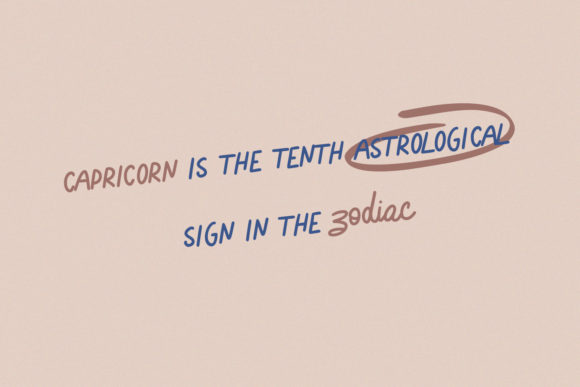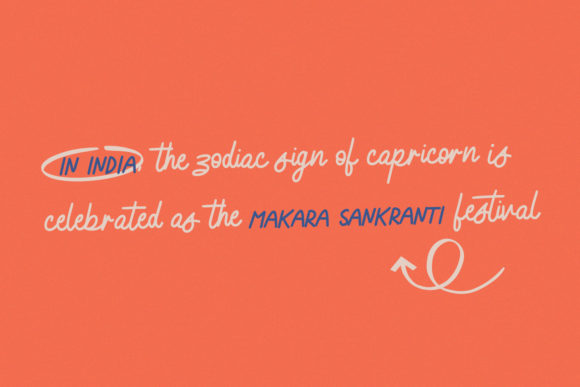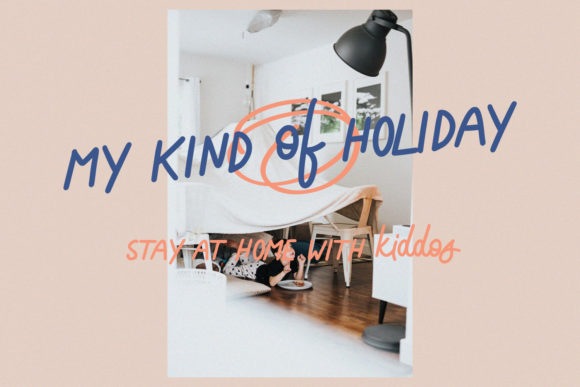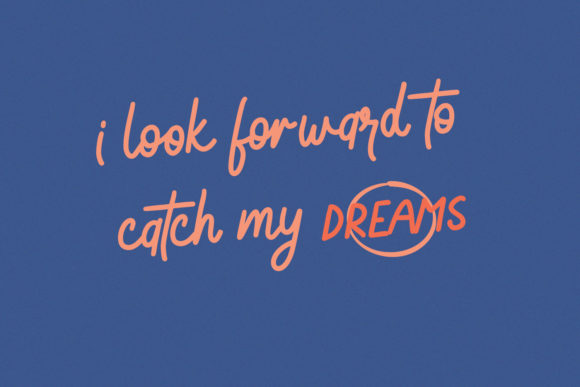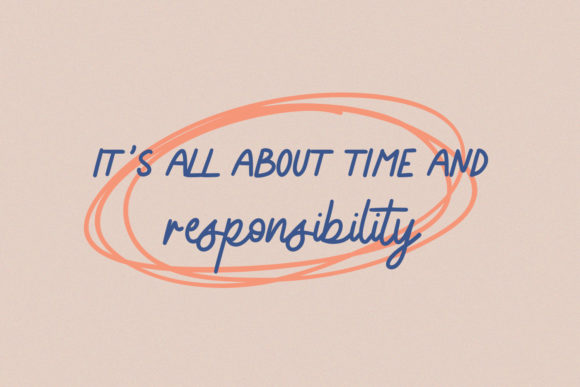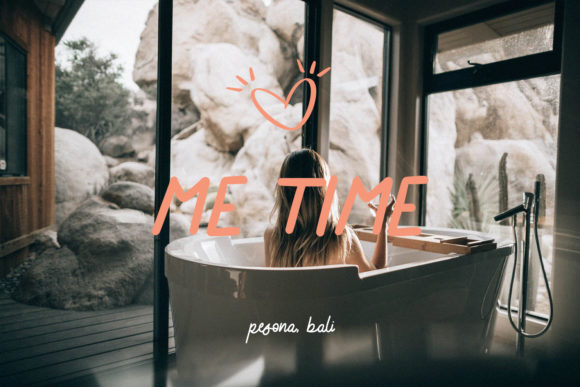
Introducing Capricorn Sign Font: The Perfect Addition to Your Design Arsenal
Are you a designer or crafter looking for a unique and versatile font to elevate your creative projects? Look no further than the Capricorn Sign Font, a simple yet charming handwritten font that is sure to capture your audience’s attention. In this article, we’ll dive into the features and benefits of this delightful font, and explore how you can use it to take your designs to the next level.
What is Capricorn Sign Font?
Capricorn Sign Font is a carefully crafted handwritten font that exudes a sense of casual charm and playfulness. Its simple and easy-to-use design makes it perfect for a wide range of creative projects, from digital designs to handmade crafts. The font’s cute doodle elements add a touch of whimsy and personality, making it ideal for designers and crafters who want to add a personal touch to their work.
Key Features of Capricorn Sign Font
- Handwritten style: The Capricorn Sign Font boasts a beautiful, handwritten style that is both elegant and approachable.
- Cute doodle elements: The font’s adorable doodle elements add a playful touch to your designs, making them more engaging and fun.
- Simple and easy to use: The font’s clean and simple design makes it easy to use and pair with other fonts and design elements.
- Versatile: The Capricorn Sign Font is suitable for a wide range of creative projects, from digital designs to handmade crafts.
How to Use Capricorn Sign Font in Your Designs
The Capricorn Sign Font is incredibly versatile, and can be used in a variety of creative projects. Here are a few ideas to get you started:
- Digital designs: Use the font in your digital designs, such as social media graphics, blog posts, and email newsletters.
- Handmade crafts: Add a personal touch to your handmade crafts, such as cards, gift tags, and scrapbook pages.
- Branding and packaging: Use the font in your branding and packaging designs to add a touch of personality and whimsy.
Tips for Pairing Capricorn Sign Font with Other Design Elements
To get the most out of the Capricorn Sign Font, try pairing it with other design elements, such as:
- Bold fonts: Pair the font with a bold font to create a striking contrast and add visual interest to your designs.
- Colorful graphics: Combine the font with colorful graphics and illustrations to add a pop of color and energy to your designs.
- Textures and patterns: Add texture and depth to your designs by pairing the font with textures and patterns.